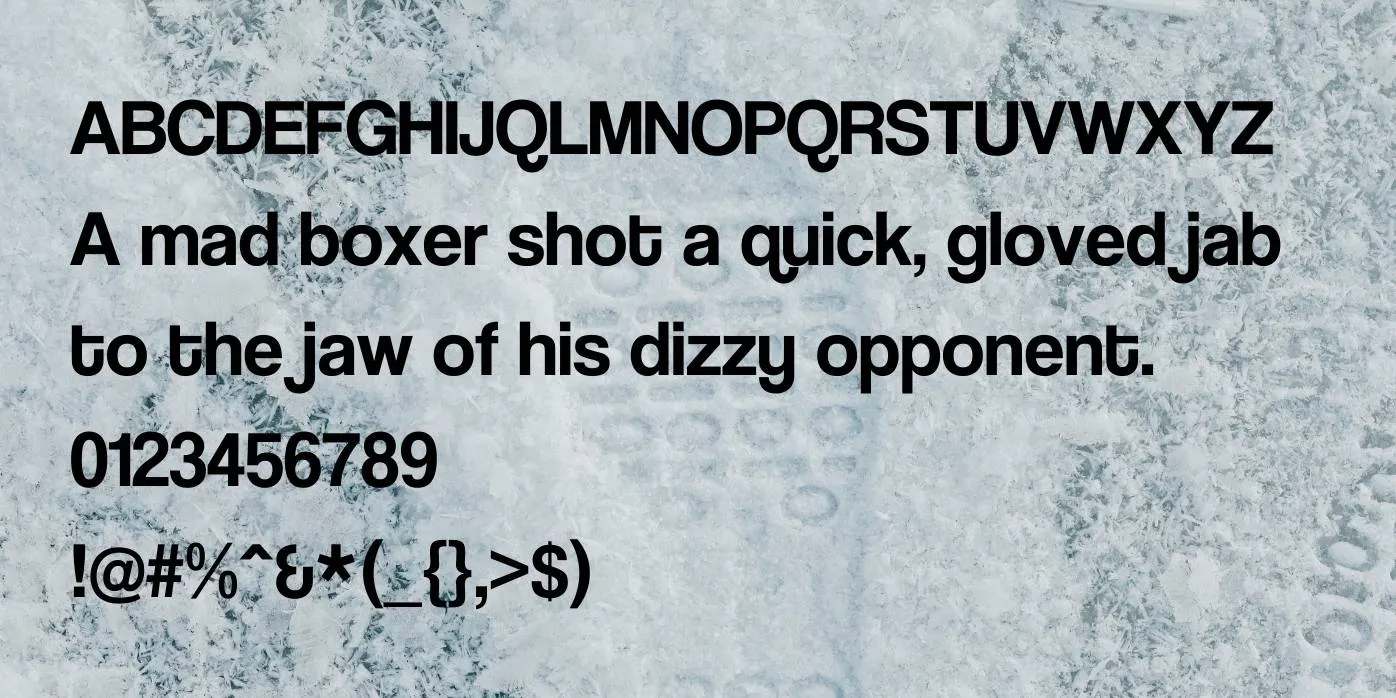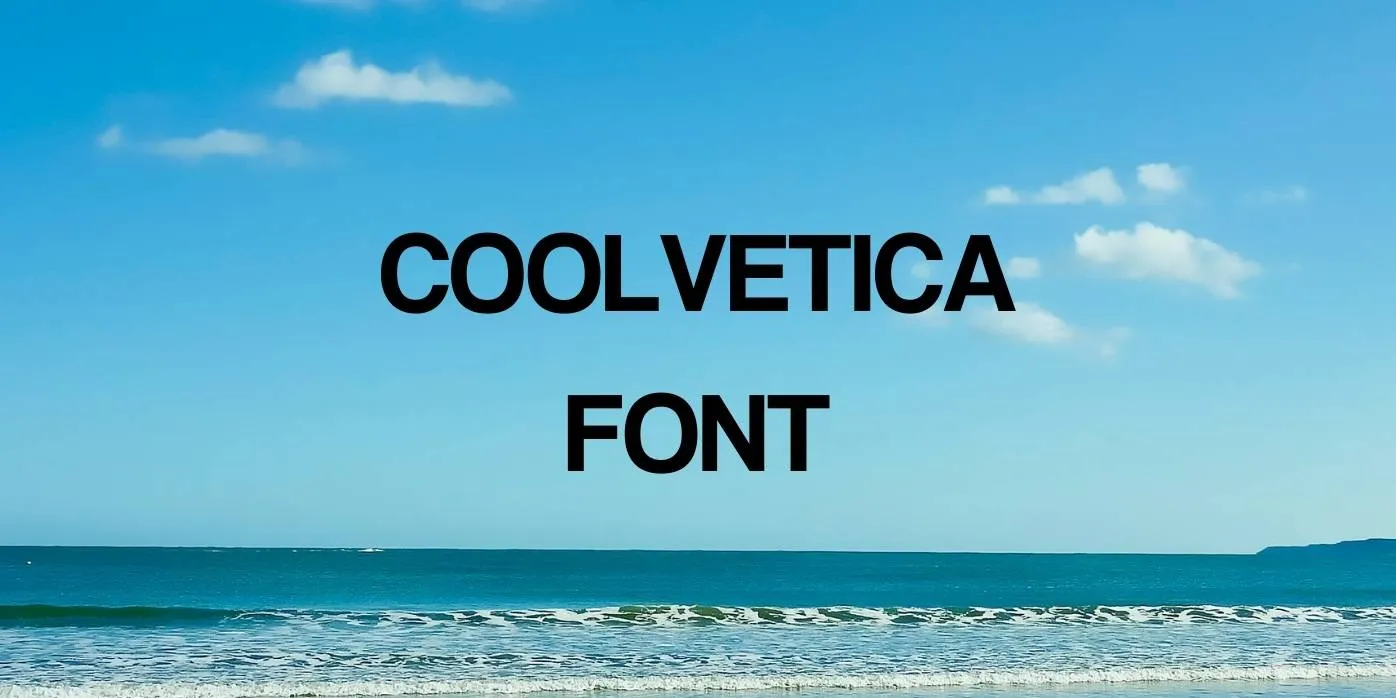
Coolvetica Font
Coolvetica Font is famous for its bold and italic function. This is similar to the Helvetica font. This is also famous for its commercial use. The designer of this typeface is Ray Larabie with the help of Typodermic fonts.
It is a beautiful sans serif typeface that has the ability to support many languages. The font is the best typeface for both web or screen projects due to its simple and pretty shape characters. It is free for personal use and provides the best features with Helvetica font. The font family is very useful for making different designs in CSS (Cascading style sheet) and many other designing software also.